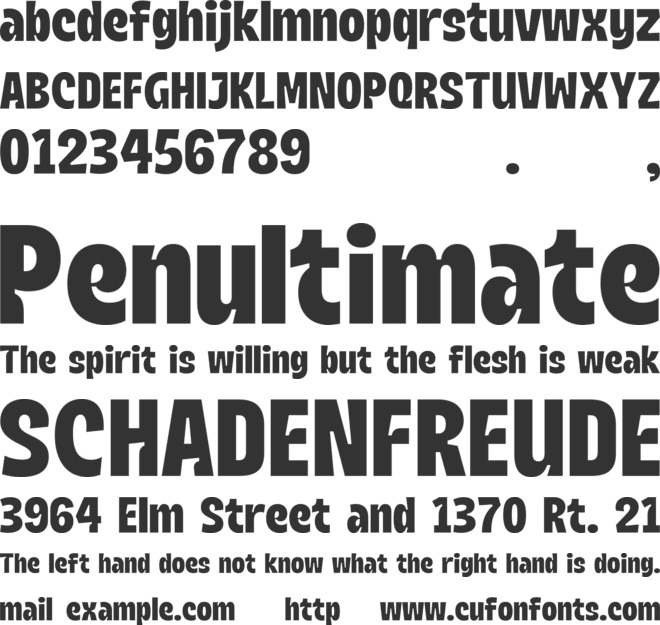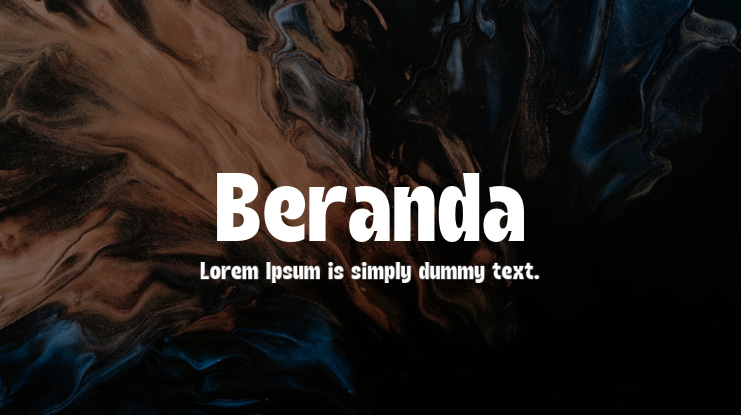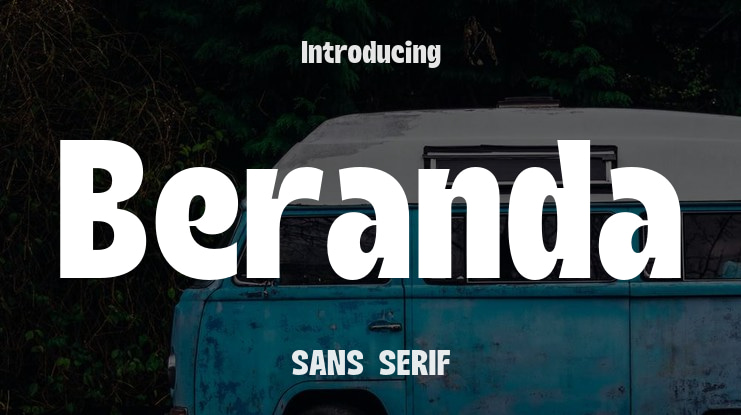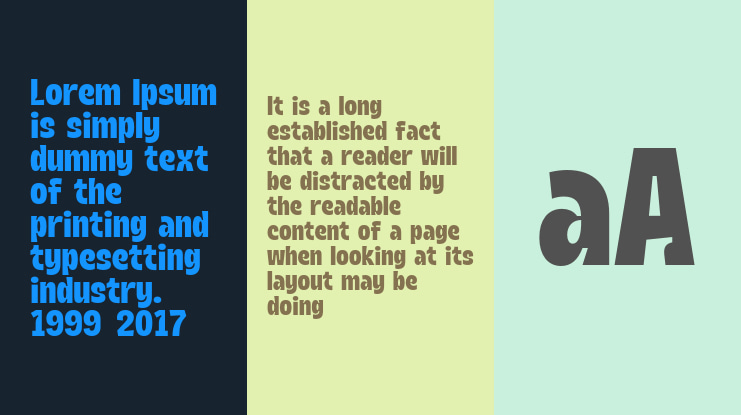
Beranda Font Family
Meet Beranda, a modern and compact sans-serif font with distinctive inktraps that make a visual impact. Created to prioritize efficiency and readability, Beranda is perfect for projects that need space-saving typography with style. Its sharp edges and notable inktraps not only improve legibility at small sizes but also bring a unique charm to headlines and branding materials. Whether you're working on digital interfaces, editorial designs, or signage, Beranda's bold presence and contemporary style will help your text stand out with clarity and elegance.
Beranda comes in two versions: regular and semi-round.